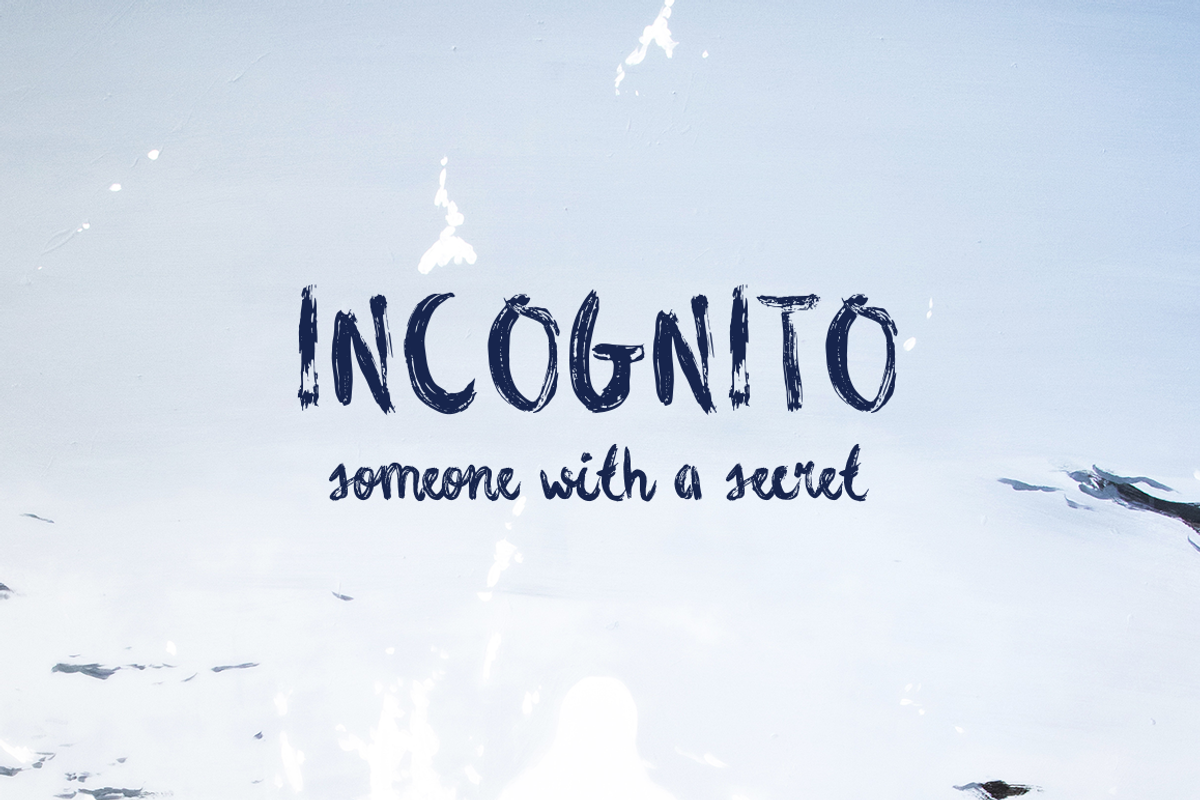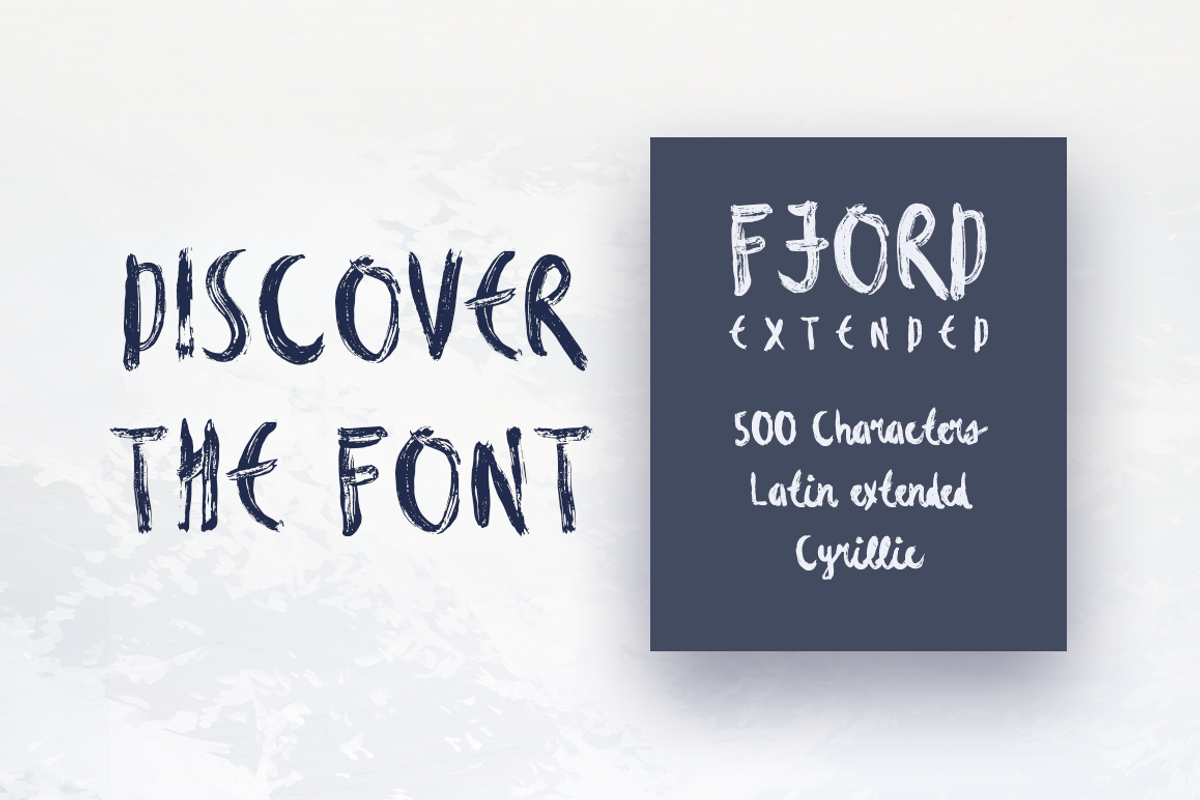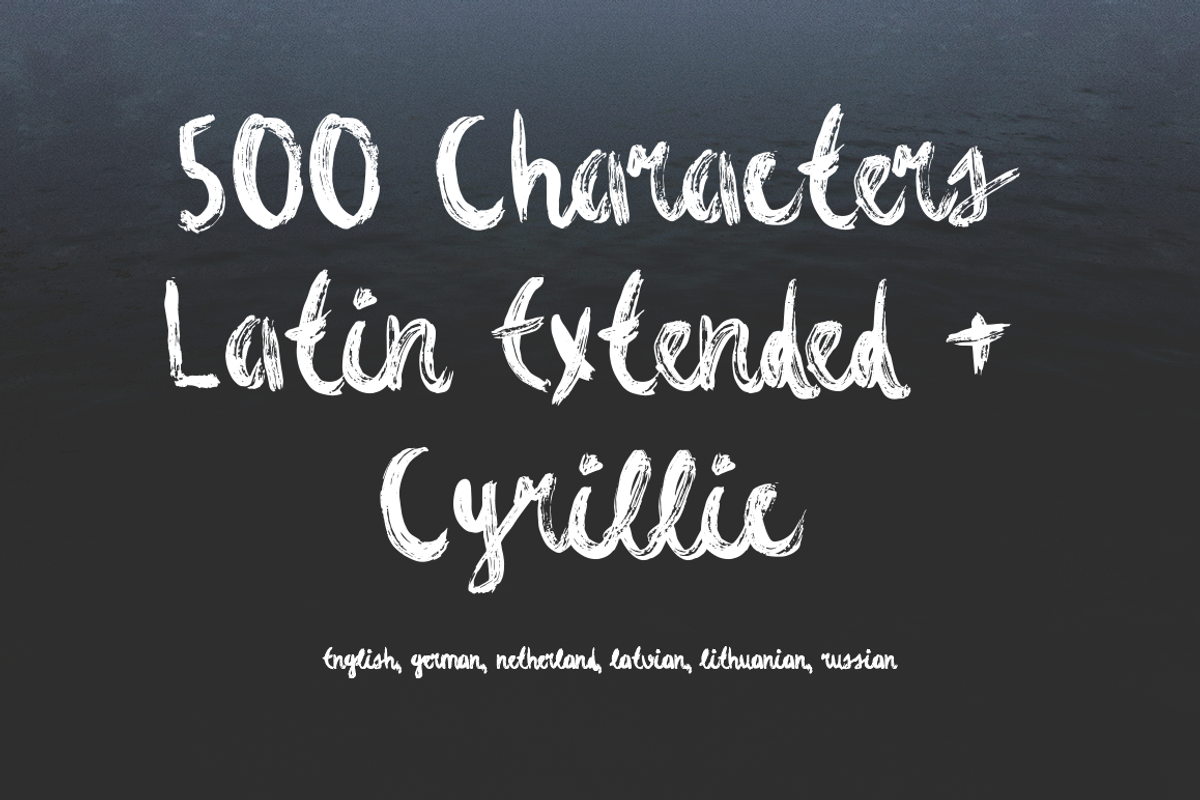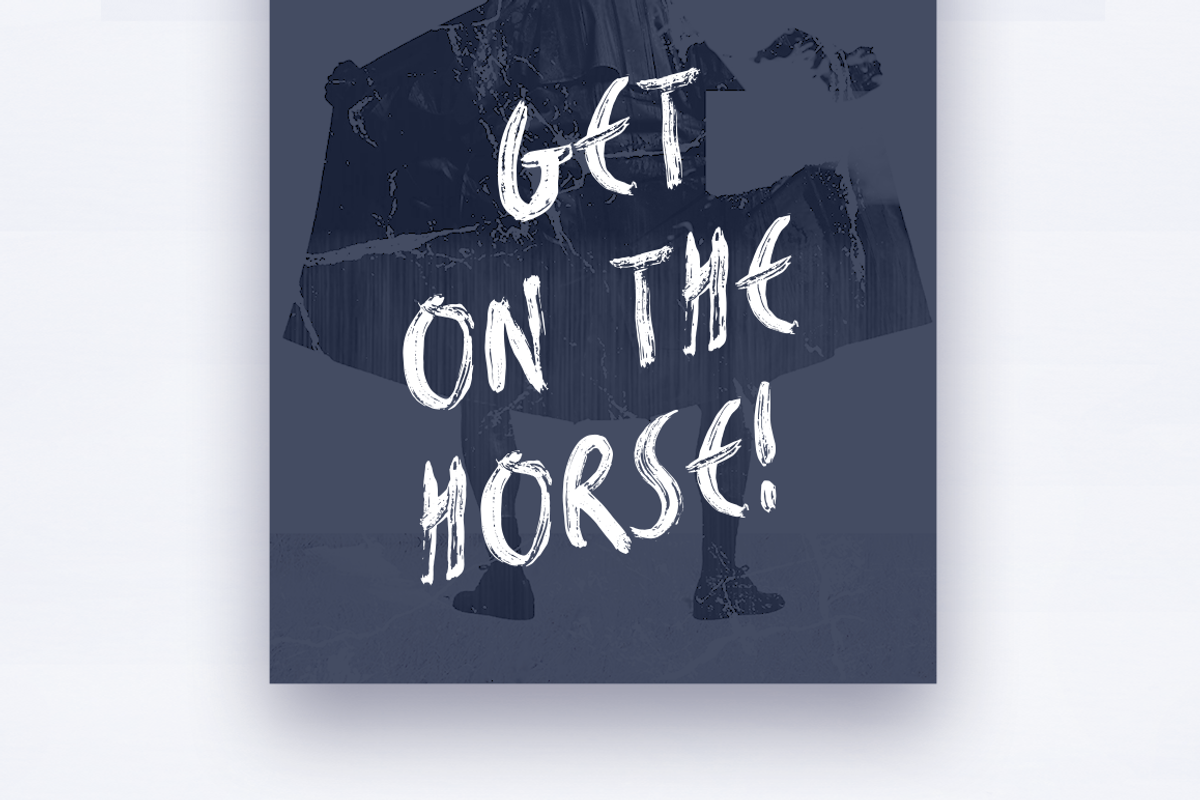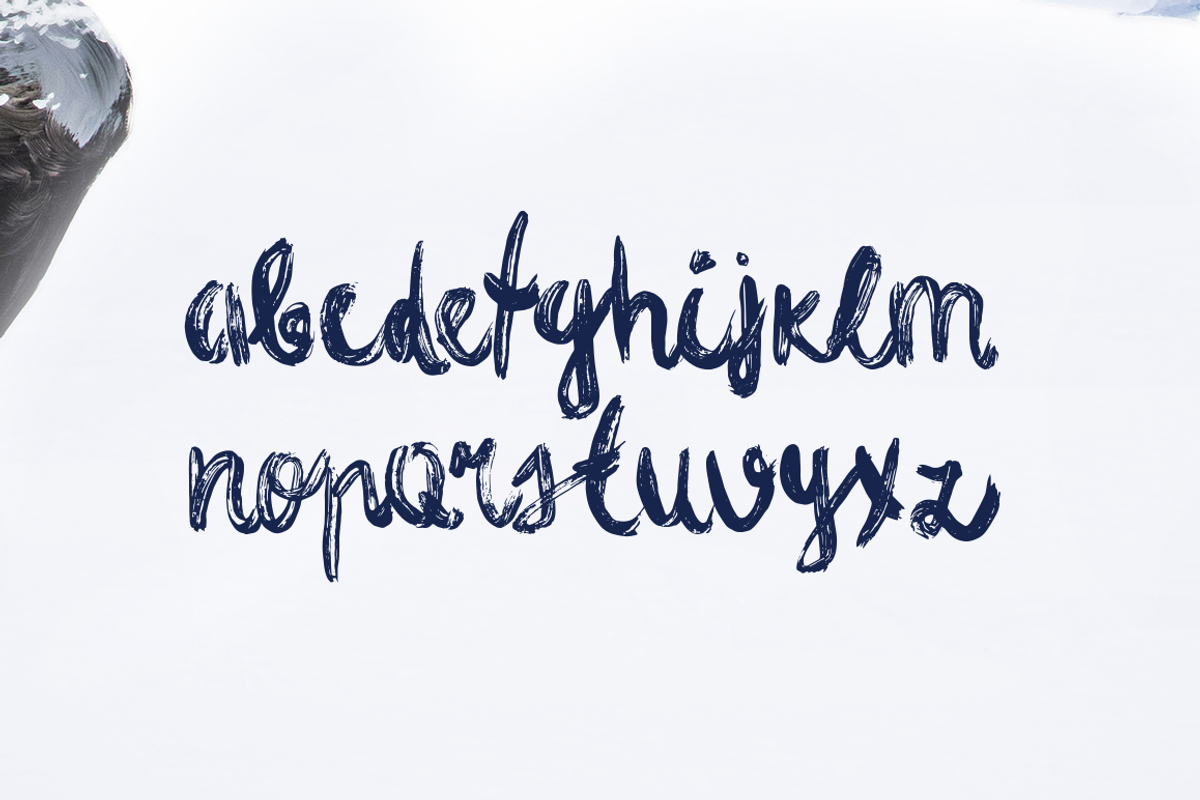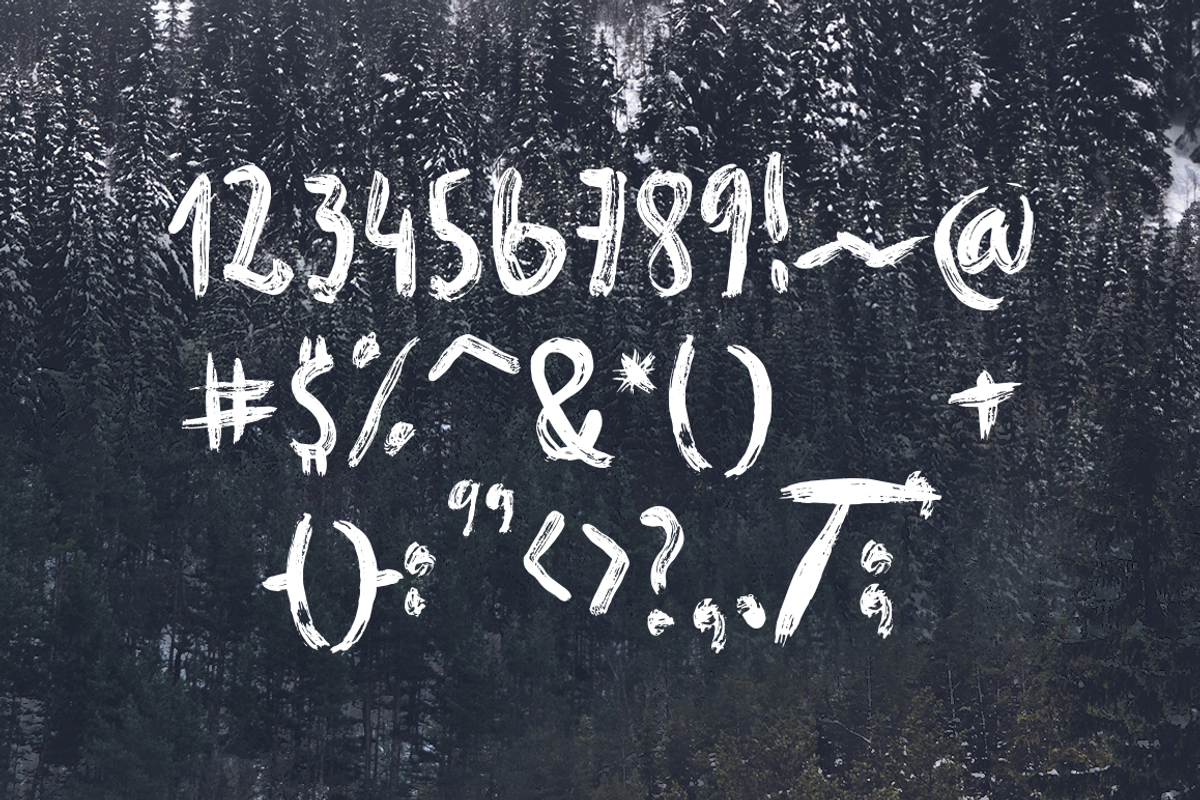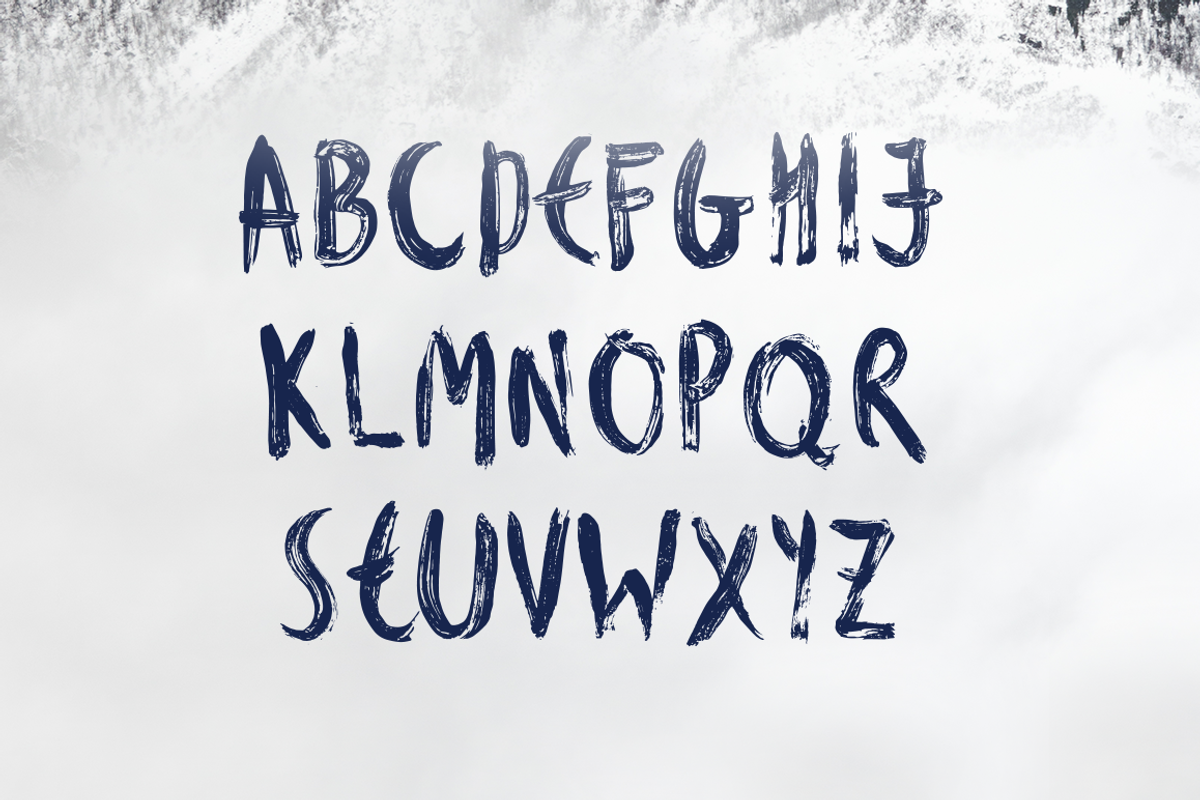
Fjord Brush Font
Fjord Brush Font by Wild Ones is a font selected for branding, posters, packaging, typography.
Why Fjord Brush Font is worth a look
Fjord Brush Font by Wild Ones fits naturally into Branding, posters, packaging, typography.